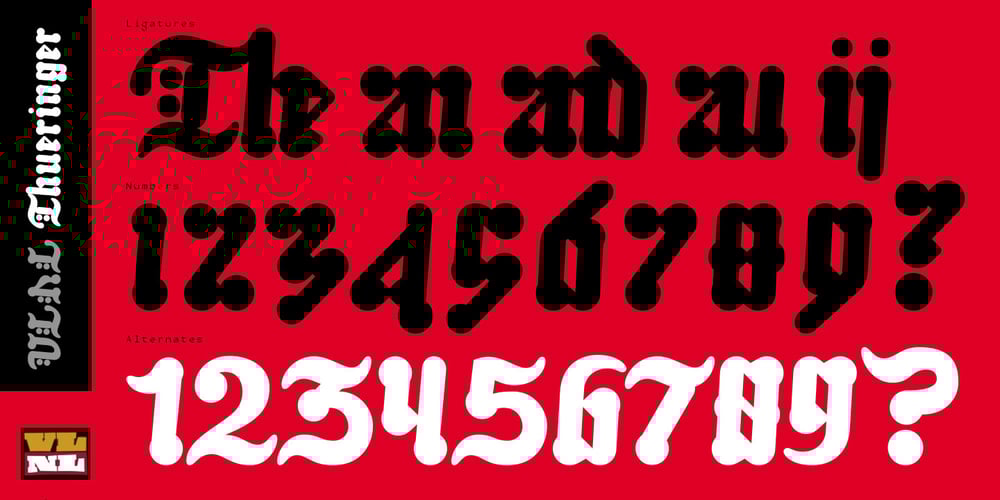
VLNL Thueringer
VLNL Thueringer font
VLNL Thueringer Font Family was designed by Jacques Le Bailly and published by VetteLetters. VLNL Thueringer contains 1 styles and family package options. We cannot imagine anyone not liking beer. Especially on a warm summer night there is simply little that can top an ice cold brewski. And with the current wave of home-brewed ales and lagers, Vette Letters decided to not stay behind and brew its own brand. Just so we can design our own beer bottle label using our own font. VLNL Thueringer comes from the drawing board of Jacques Le Bailly (a.k.a. Baron von Fonthausen), the German-French specialist in the fields of both beer and type design. One day Jacques got inspired by Albrecht Dürers 15th century Fraktur (blackletter) alphabet, and decided to design a contemporary rounded version of it. Although the historic context is clearly visible, Thueringer definitely stands its own ground. It’s a modern techno-style blackletter with a (beer)truckload of interesting design details. Thueringer contains a number of ligatures and an alternate set of numbers. Apart from the regular uses like logos, posters, flyers and headlines we definitely would like to see our Thueringer used on beer bottle labels and crates, but also cafés and hipster bars would do well with this modern-day blackletter. Hell, even wine or liquor labels, football team jerseys, Oktoberfest flyers, it’s just too much to mention. As long as it is accompanied by a cold beer.